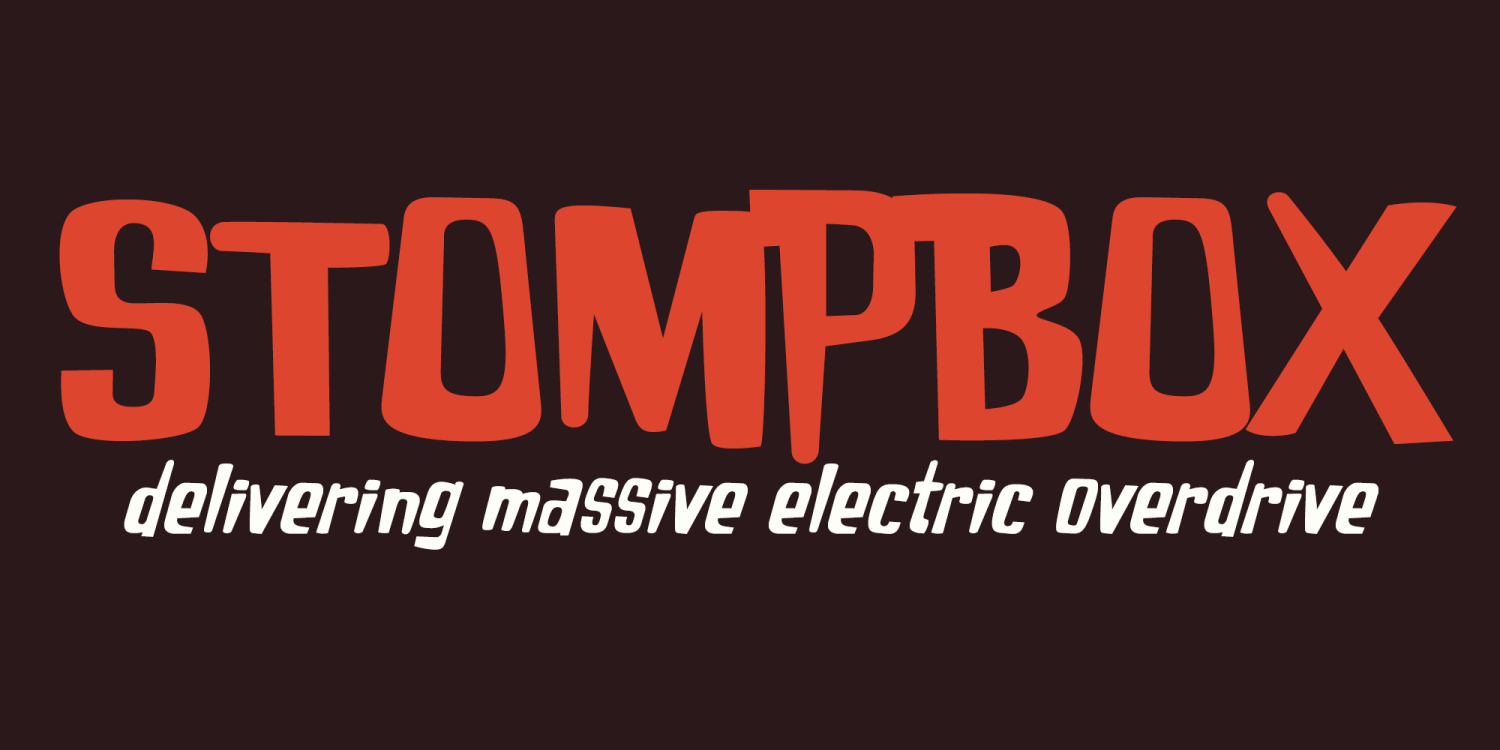
Gainsbury
Gainsbury is a fun, lighthearted display font with a relaxed retro spirit and a warm, approachable personality. Its rounded forms and easygoing rhythm give it a groovy, friendly feel that works beautifully for branding, packaging, posters, greeting cards, invitations, social media graphics, and other designs that call for a playful vintage touch. Cheerful, casual, and full of charm, Gainsbury brings an upbeat sense of personality to headlines, logos, and lifestyle-oriented creative work. Includes extended Latin language support, including Vietnamese.
Gainsbury includes 531 glyphs.